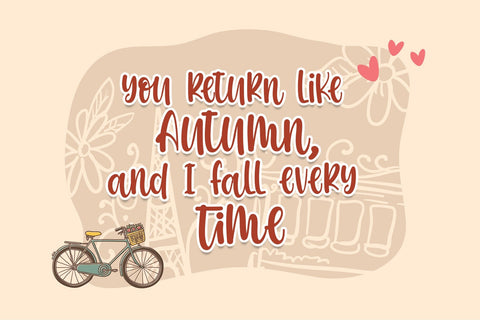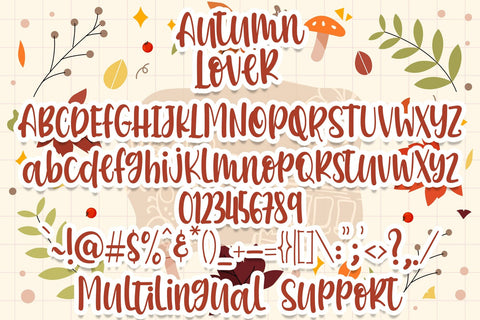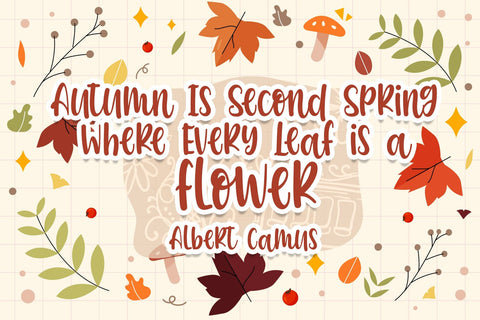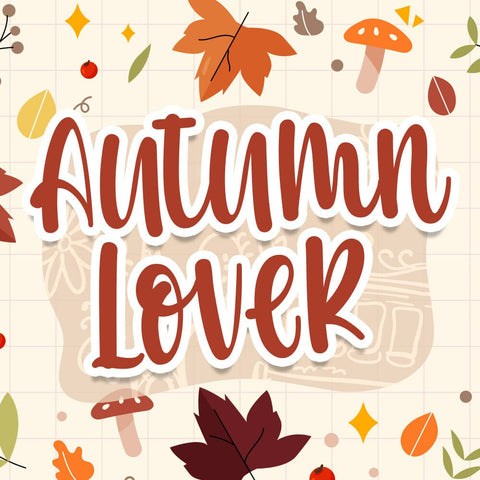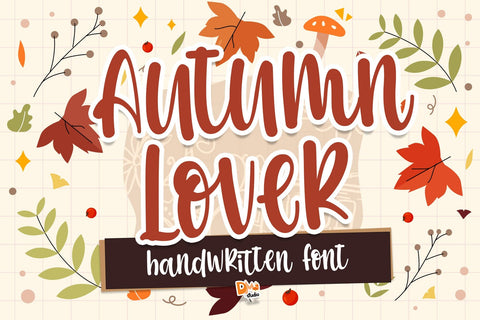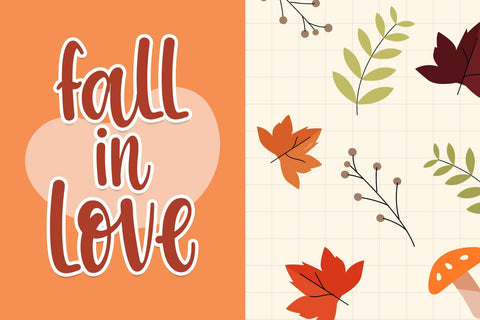
Autumn Lover Font
Embrace the cozy and nostalgic spirit of fall with the Autumn Lover Font. This charming typeface is designed to evoke the warmth and beauty of autumn, making it ideal for a variety of design projects. Crafted with intricate details and a touch of rustic elegance, the Autumn Lover Font is perfect for creating invitations, signage, social media graphics, and more.
- Seasonal Elegance: The Autumn Lover Font captures the essence of fall with its intricate letterforms, featuring delicate details inspired by the beauty of autumn leaves and nature.
- Versatile Usage: Whether you're designing seasonal greeting cards, cozy blog graphics, or rustic wedding invitations, this font adds a touch of autumnal charm to your projects.
- Invitations and Cards: Create warm and inviting invitations for fall events, weddings, and parties. The Autumn Lover Font adds a touch of rustic elegance to your stationery.
- Social Media Graphics: Elevate your social media presence with autumn-themed graphics for posts, stories, and banners. Connect with your audience through seasonal aesthetics.
- Blog and Website Design: Use the font to add a cozy and seasonal feel to your blog or website. Create engaging headers, featured images, and more.
- DIY Crafts: From homemade labels to autumn-themed crafts, the Autumn Lover Font adds a personal and stylish touch to your DIY projects.